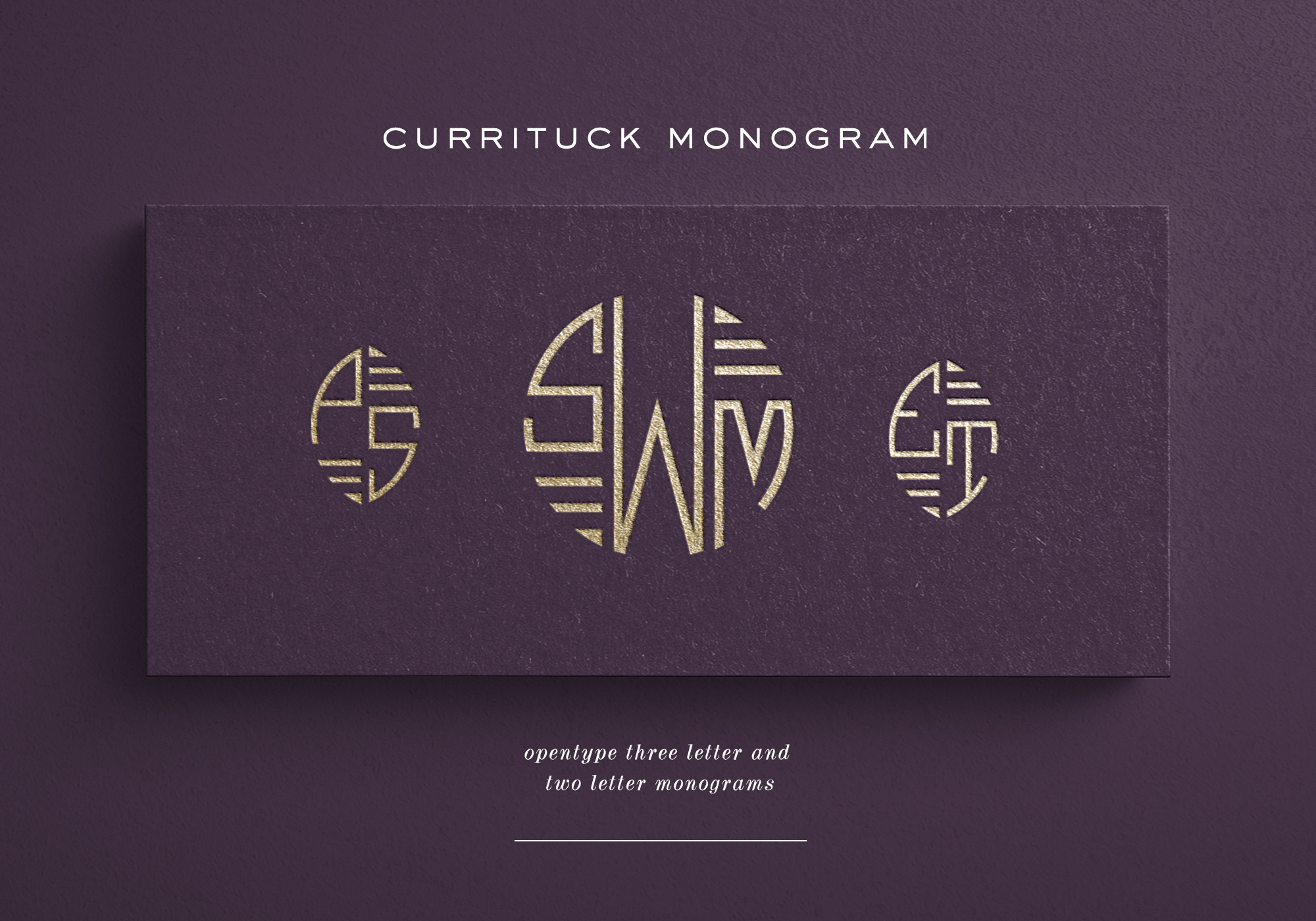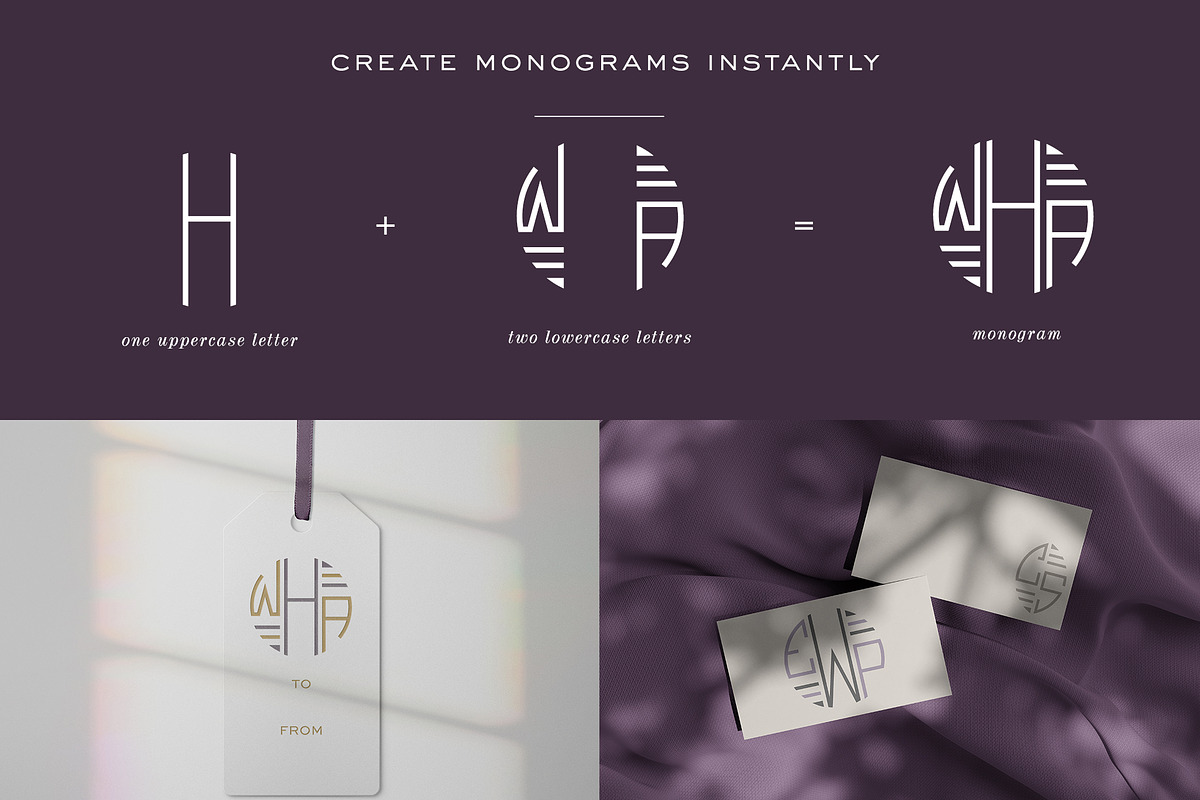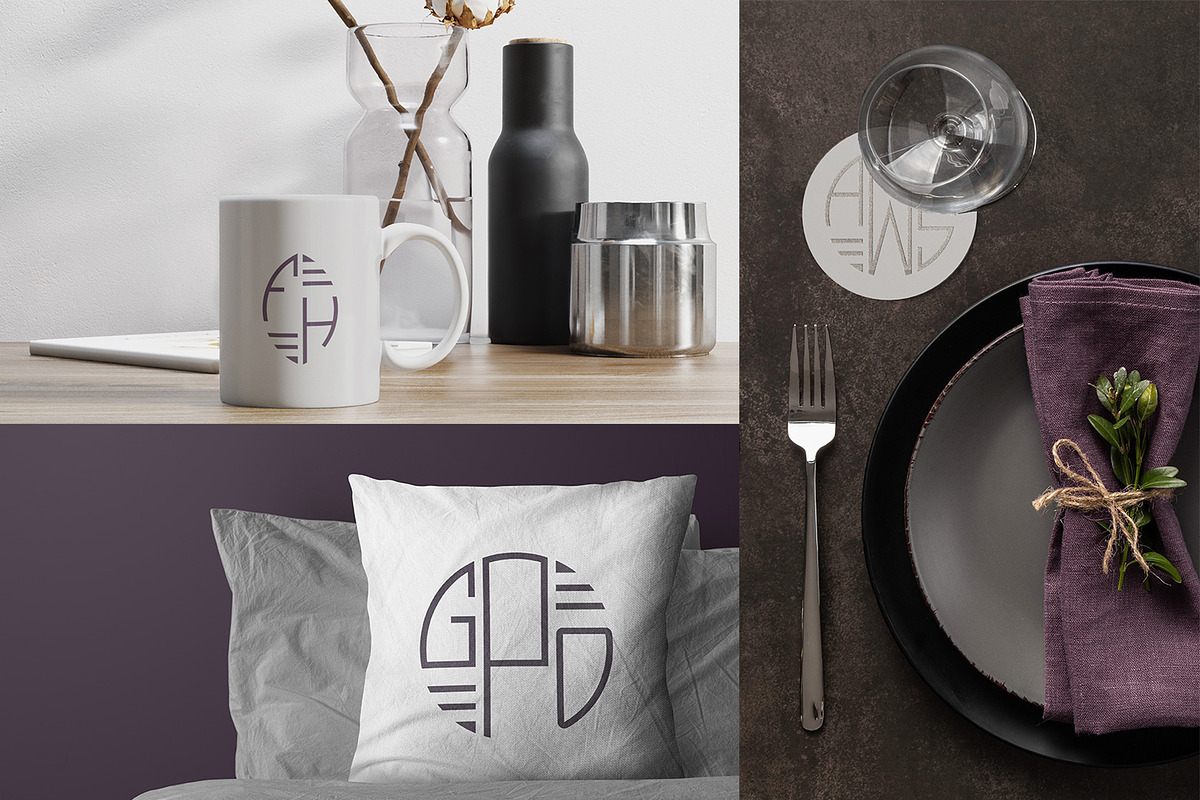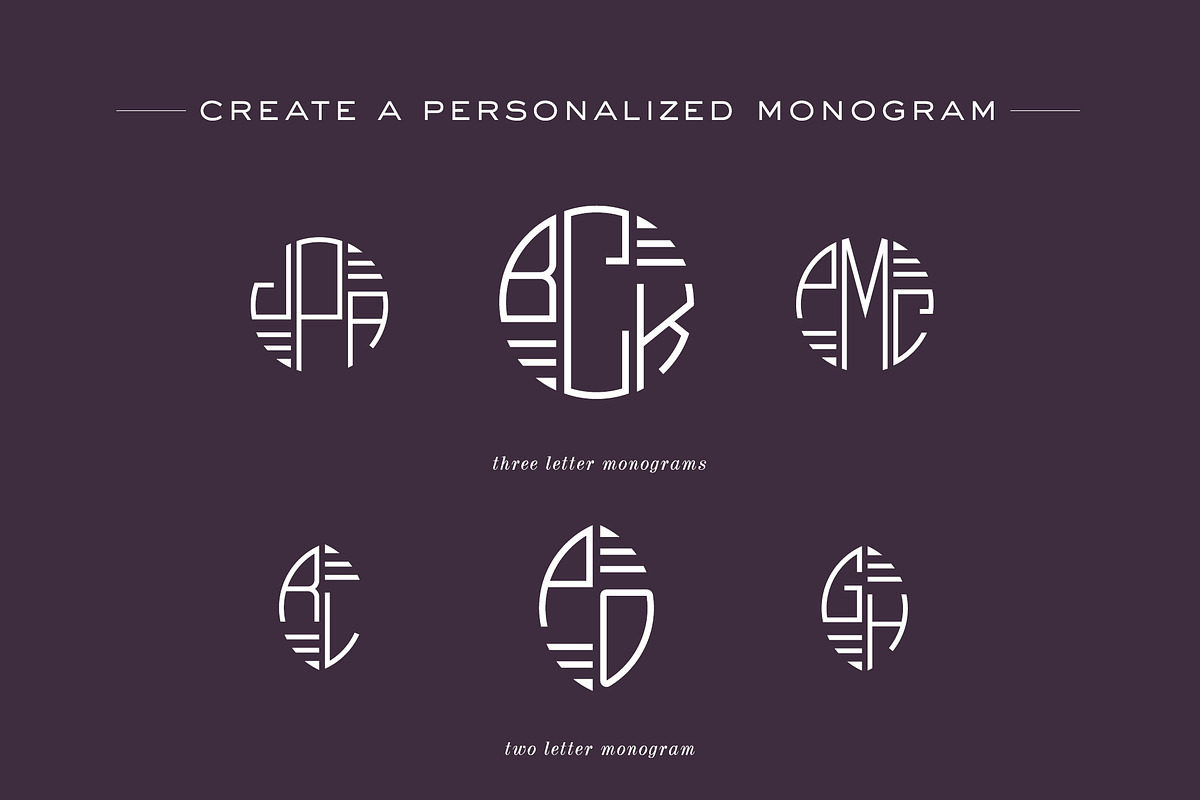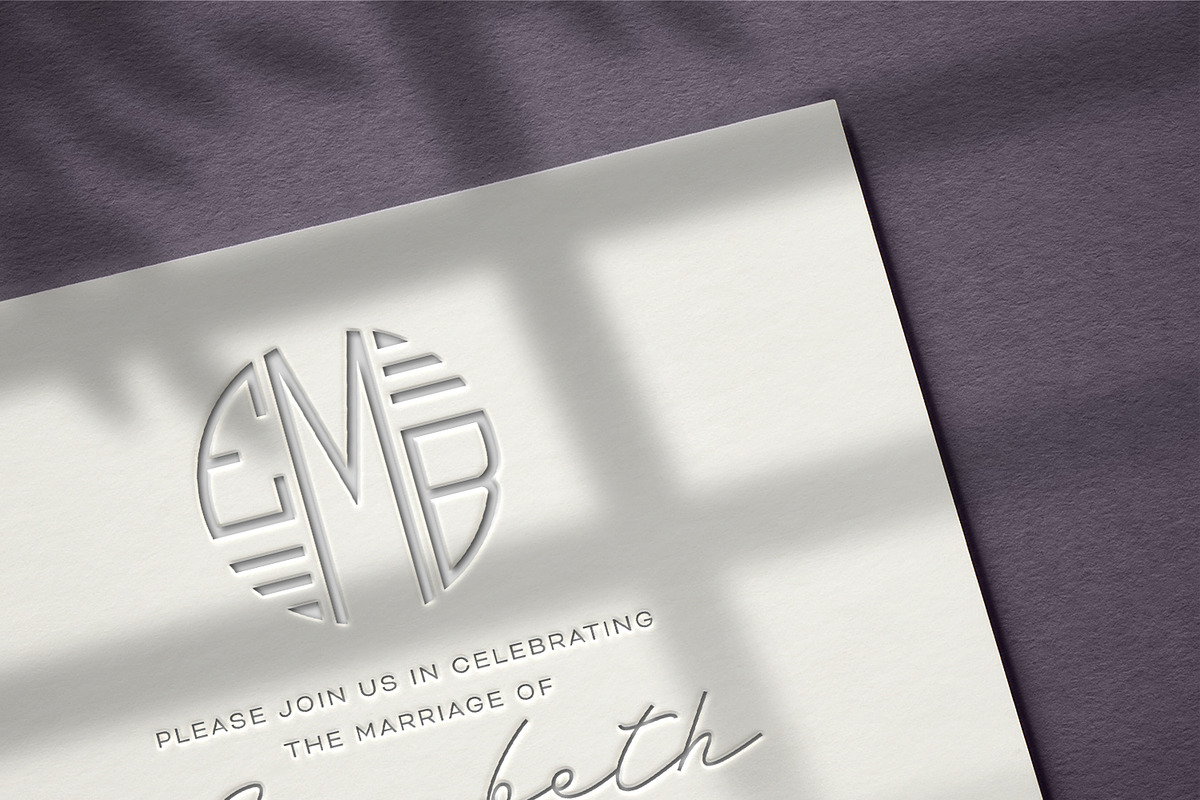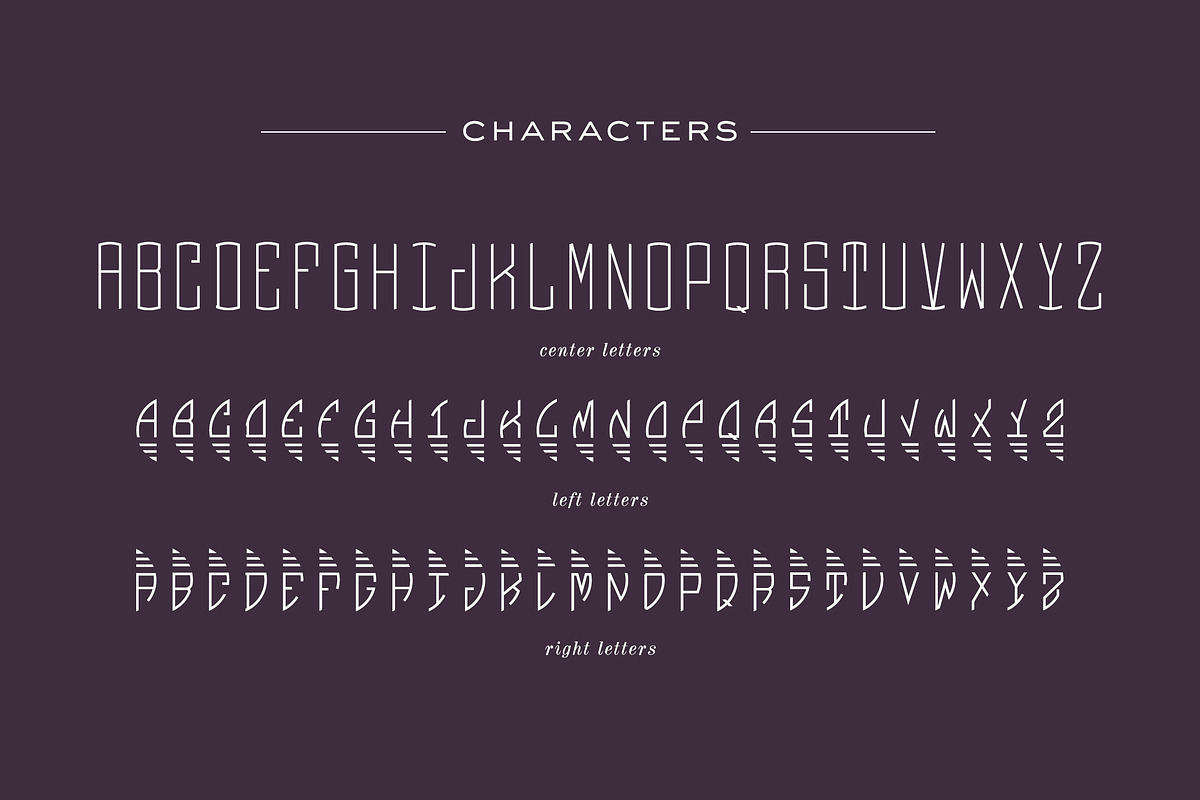
Currituck Monogram Font
Make gorgeous two and/or three letter monograms quickly and easily in any program with this OpenType font.
CURRITUCK MONOGRAM FONT is the perfect monogram font suitable for wedding invitations, branding, stationery, blog design, custom art, return address stamps, custom embossers, etc. - the possibilities are endless!